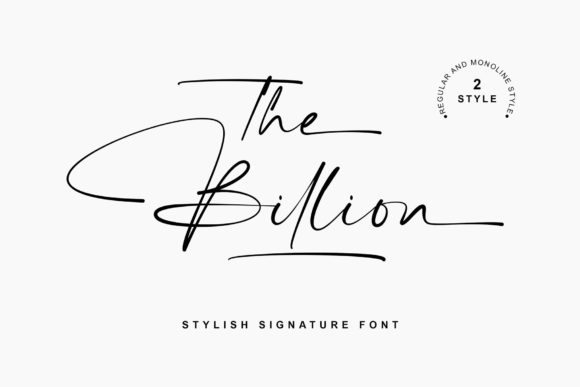
Unleash your creativity with The Billion Font, a captivating script font that will add a touch of elegance and sophistication to your designs. Its clean and simple lines make it the perfect choice for creating stunning logos, eye-catching headlines, and beautiful invitations.
The Billion Font is PUA encoded, ensuring effortless access to its full range of glyphs and swashes. This makes it incredibly versatile, whether you're designing for print or digital media. Its elegant curves and flowing lines will add a touch of charm and personality to any project.
With The Billion Font, you can create designs that truly stand out. Its timeless beauty and effortless style will elevate your work to new heights. Whether you're a seasoned designer or just starting out, this font will become an indispensable tool in your creative arsenal.
Discover the endless possibilities of The Billion Font and let your imagination run wild. From whimsical invitations to sophisticated logos, this font will add a touch of magic to your creations. Elevate your designs and make a lasting impression with The Billion Font.